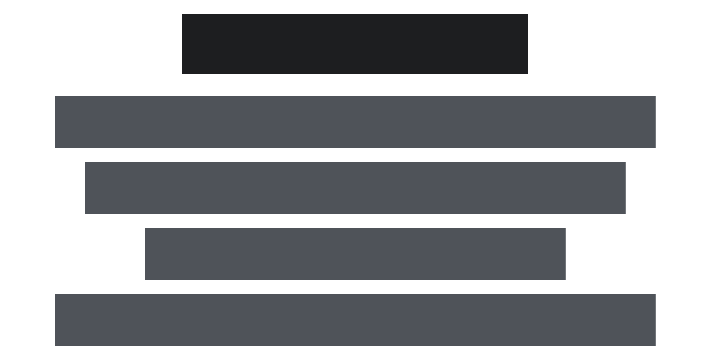
Redacted Font
by Christian Naths
Redacted Font
About Redacted
Redacted and Redacted Script are suitable for wireframing and rapid prototyping. Designed to be unreadable, it keeps your wireframes free of distracting Lorem Ipsum or other dummy text.